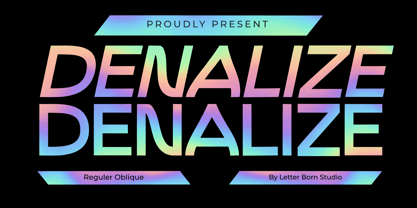
Denalize
by Letter Born Studio
The Denalize Font Family was designed by Firman Satrio and published by Letter Born Studio. Denalize contains 2 styles and family package options. More about this family
Denalize is a font that features a modern and elegant character, with slim, streamlined lines and clean letterforms. This font is designed to convey a contemporary feel while maintaining simplicity for readability. With bold yet light characters, Denalize is suitable for various design needs, ranging from branding, promotional materials, to web or app interfaces. Its ability to blend aesthetic beauty with functionality makes it an ideal choice for design projects that emphasize a minimalist and professional appearance. In addition to its regular style, Denalize also offers an oblique variant, which adds a dynamic and stylish slant to the characters, providing a sense of movement and energy without sacrificing its clean, modern look.
Designers: Firman Satrio
Foundry: Letter Born Studio
Letter Born Studio is a design foundry founded by Firman Satrio, focused on creating unique and character-driven fonts. Combining classic and modern elements, the studio designs typography that is not only functional but also artistic, with a strong attention to detail and high quality. Letter Born Studio aims to make a creative contribution to the graphic design world through captivating and meaningful fonts